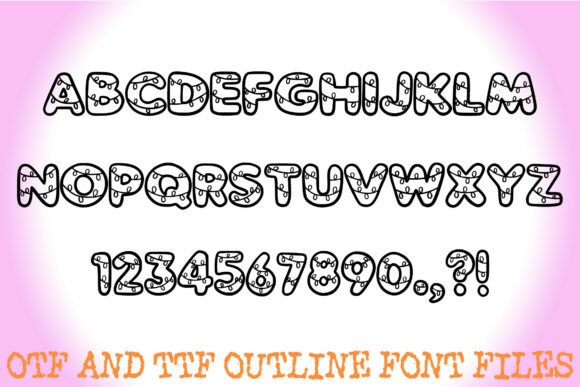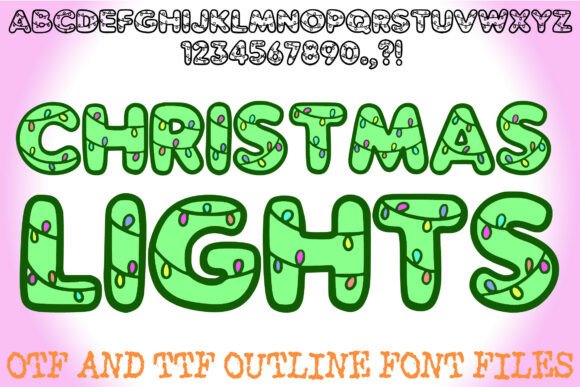
Illuminate Your Holiday Designs with Christmas Lights Font
The holiday season is upon us, and what better way to get into the festive spirit than with a font that’s as merry and bright as the season itself? Introducing the Christmas Lights Decorative Font, a charming and highly decorative typeface that’s sure to add a cheerful, celebratory glow to all your seasonal projects.
A Festive Font Like No Other
This delightful font features rounded, bubbly letters wrapped perfectly in a string of festive holiday lights. The bold, clear letterforms ensure high legibility, while the integrated lights provide that essential Christmas magic. Whether you’re working on holiday cards, personalized gifts, festive apparel, cookie exchanges, party invitations, or winter event headers, this font is the ideal choice.
As a designer or crafter, you’re always on the lookout for unique and eye-catching elements to make your projects stand out. The Christmas Lights Font is a game-changer, allowing you to create stunning holiday-themed designs that are sure to impress. With its easy-to-use format and versatile style, you can use this font to create a wide range of projects, from professional-looking business cards to fun and playful party invitations.
Key Features of the Christmas Lights Font
- Rounded, bubbly letters: The font features rounded, bubbly letters that are perfect for creating a festive and playful atmosphere.
- Integrated holiday lights: The font includes integrated holiday lights that add a touch of Christmas magic to your designs.
- High legibility: The bold, clear letterforms ensure high legibility, making it easy to read and understand your designs.
- Capital letters in black outline: The font features capital letters in black outline, adding a touch of sophistication and elegance to your designs.
- Numbers and punctuation available: The font includes numbers and punctuation marks, making it easy to create complete and professional-looking designs.
The Christmas Lights Font is incredibly versatile, and the design possibilities are endless. Here are a few ideas to get you started:
- Holiday cards: Create stunning holiday cards that are sure to impress your friends and family.
- Personalized gifts: Add a personal touch to your gifts with custom labels, tags, and cards featuring the Christmas Lights Font.
- Festive apparel: Design fun and playful holiday apparel, such as t-shirts, hats, and scarves, using the Christmas Lights Font.
- Cookie exchanges: Create adorable cookie exchange tags and labels using the font’s cute and playful style.
- Party invitations: Design festive party invitations that set the tone for a fun and memorable holiday party.
- Winter event headers: Use the font to create eye-catching headers for winter events, such as Christmas markets, holiday festivals, and New Year’s Eve parties.